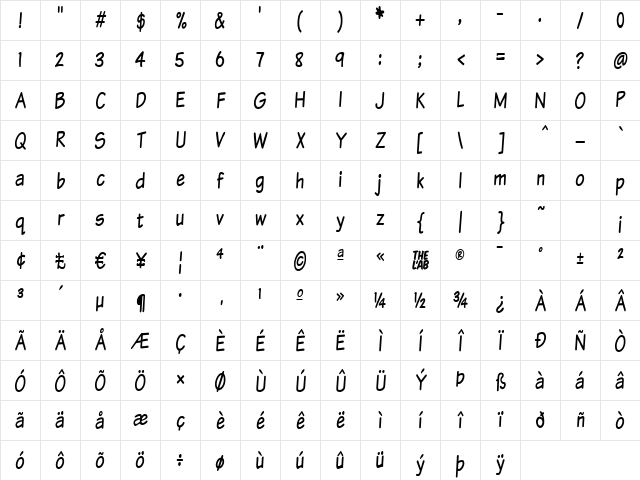
Komika Text Tight Regular Free Font
Komika Text Tight Regular
Designer: WolfBainX & Apostrophe
Design Context for Komika Text Tight
Komika Text Tight is a composed and adaptable typeface that performs quietly and consistently across a wide range of design contexts.